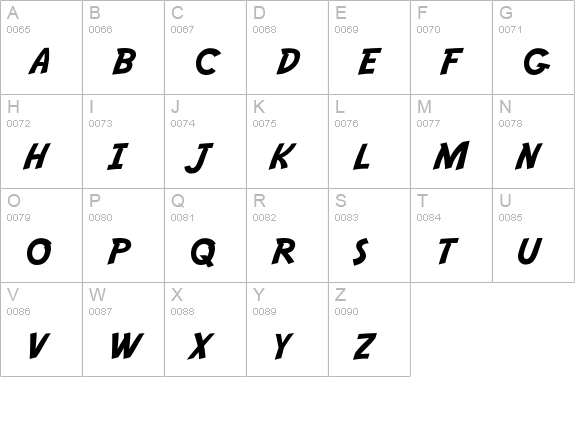
Adventure Normal Font Details
Adventure Normal is the standard, neutral variant in the Adventure typeface family \xE2\x80\x94 well suited to general body text, paragraphs, and standard typographic work.
Adventure Normal font is a versatile and engaging typeface that captures the spirit of exploration and discovery. With its classic yet modern design, Adventure Normal is perfect for adding a touch of excitement to your projects. This font is ideal for anything from adventurous travel blogs to outdoor event invitations. What sets Adventure Normal apart is its ability to convey a sense of wanderlust and curiosity. The clean lines and balanced proportions make it easy to read while still maintaining a sense of adventure. Whether you're looking to add a bold statement or a subtle touch to your designs, Adventure Normal is the perfect choice. Best of all, Adventure Normal is available for free download at FontsMarket.com. This means you can easily access this captivating font and start using it in your projects right away. Don't miss out on the opportunity to bring a sense of adventure to your designs with Adventure Normal font.